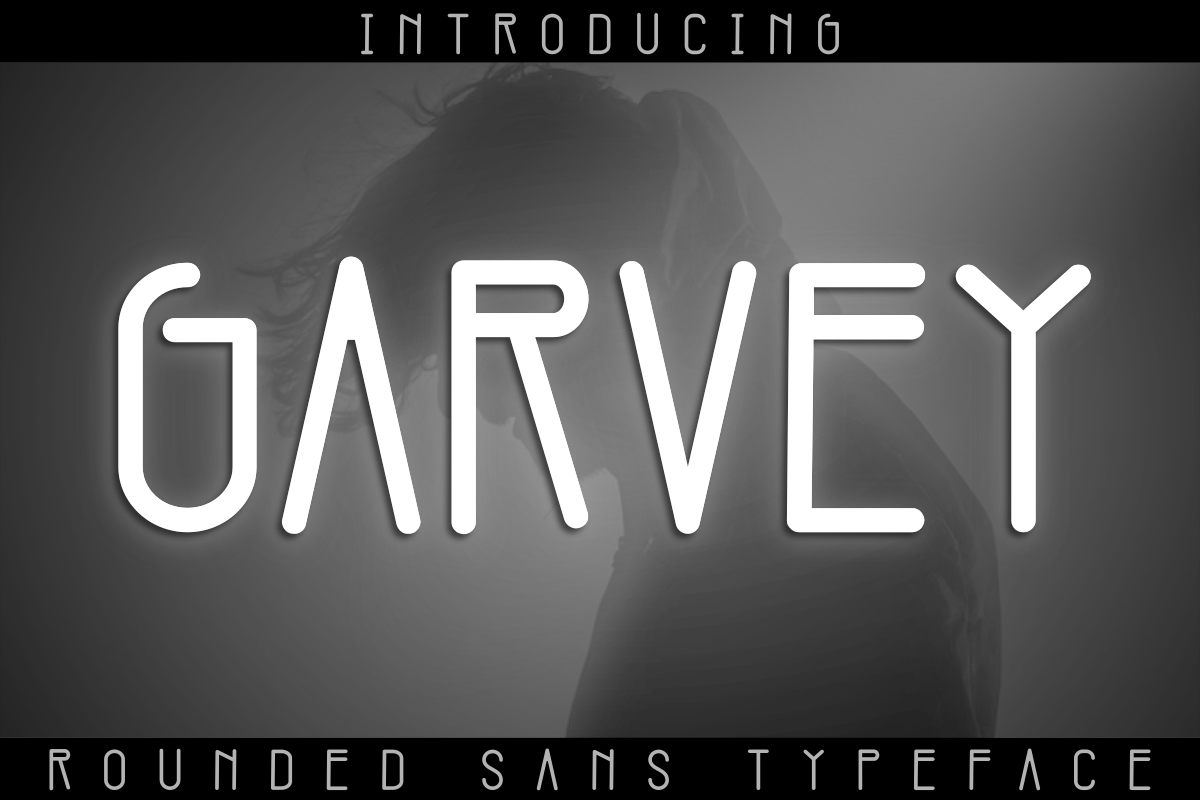
Garvey
Beauty in simplicity. This is the reason why we would like offer you the Garvey font. This font was specially designed with rounded san serif type and characterized by its slimness and height. It gives the impression of being clean and also ellegant.
This font would be perfectly used as the headline, poster, title, other graphic design.